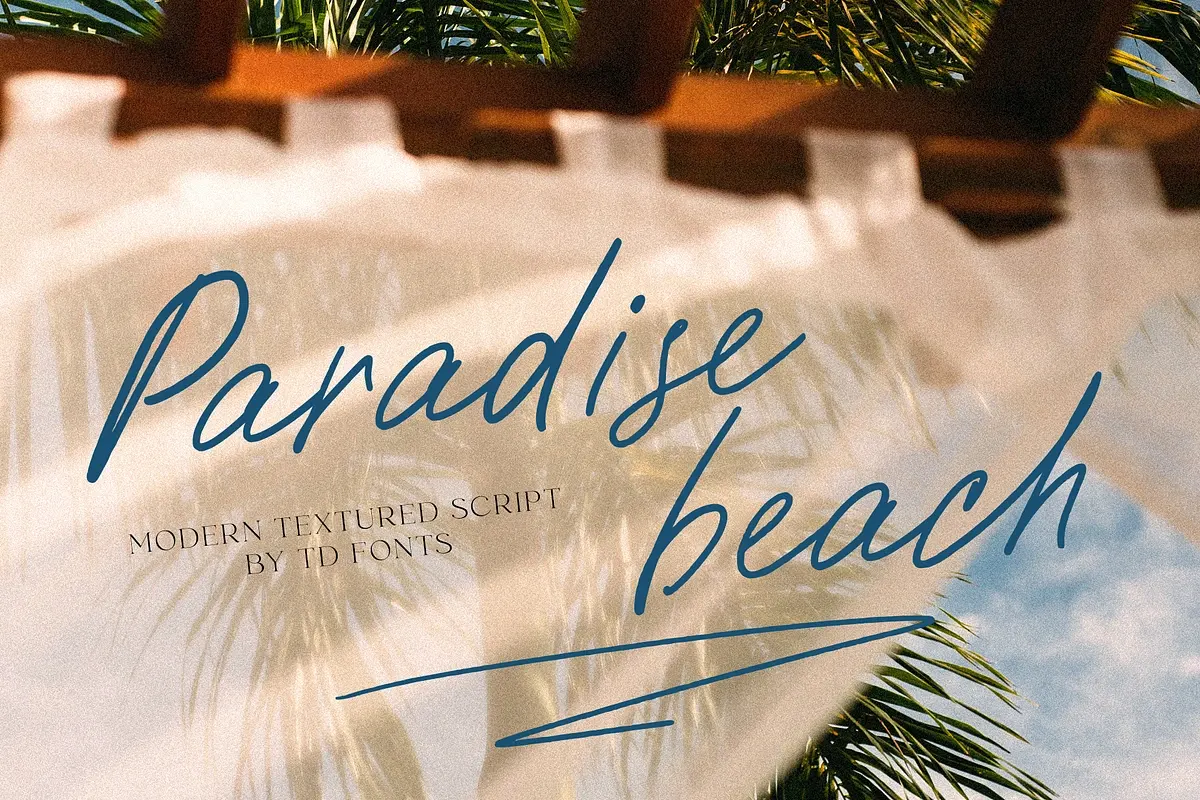
Paradise beach modern script font Free Download
Paradise Beach Modern Script Font Free Download
Paradise Beach Modern Script Font Free Download is a beautiful and elegant modern script typeface with flowing curves and smooth lines. Inspired by beachside beauty and relaxed vibes, this font brings a laid-back yet sophisticated feel to your designs. Perfect for invitations, branding, logos, social media posts, and any project that requires a stylish, personal touch.
With its contemporary, flowing style, Paradise Beach adds a touch of luxury and elegance, making it ideal for both creative and professional applications. Whether you're working on a tropical-themed project, a wedding invitation, or a luxury brand logo, this font provides a graceful and modern aesthetic.
Add a relaxed, modern charm to your designs with Paradise Beach!